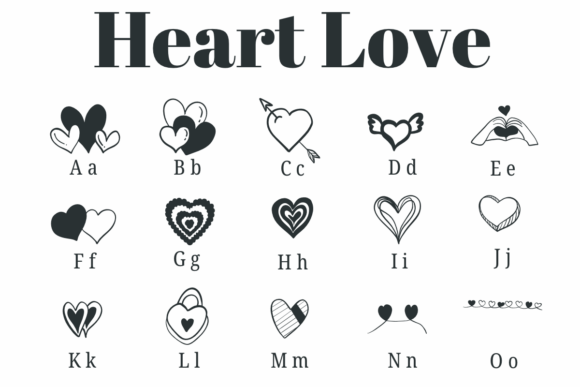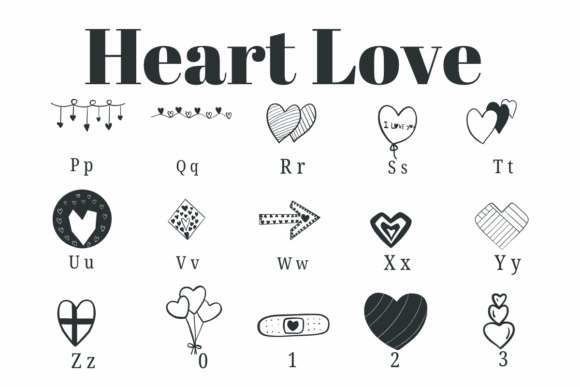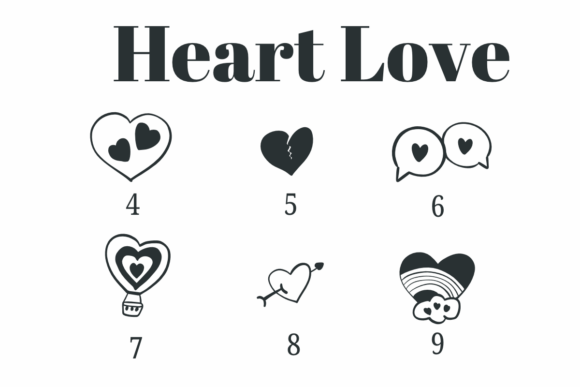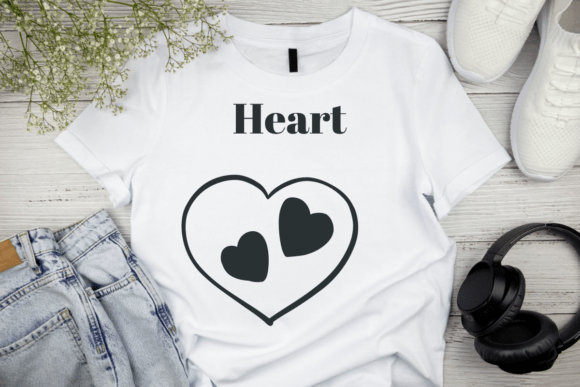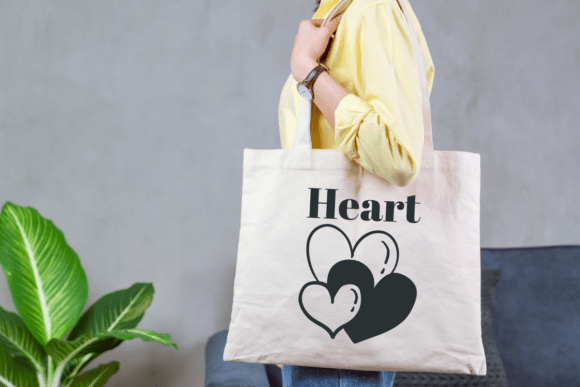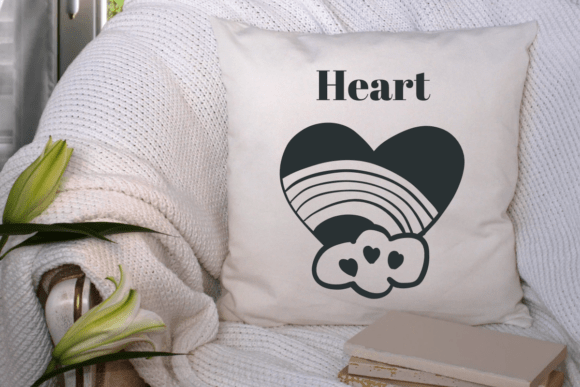
Heart Love Font: The Ultimate Romantic Dingbat Collection
Are you looking for a way to add a touch of whimsy and affection to your designs? Look no further than Heart Love, a specialized dingbat font collection that is sure to capture the hearts of designers and crafters alike. This comprehensive set of hand-drawn heart illustrations is perfect for anyone looking to add instant personality to their work, whether it’s for Valentine’s Day cards, wedding stationery, or social media stickers.
What is Heart Love Font?
Heart Love is a unique dingbat font collection that features a wide range of hand-drawn heart illustrations, from sketched outlines and solid silhouettes to romantic elements like arrows, balloons, and decorative garlands. This extensive set of icons is designed to provide a consistent, charming aesthetic that will elevate any design project. With Heart Love, you can say goodbye to the hassle of searching for individual clip art and hello to a beautiful, cohesive layout that can be achieved with just a few simple keystrokes.
The Benefits of Using Heart Love Font
So why should you choose Heart Love font for your design projects? Here are just a few benefits of using this amazing dingbat font collection:
- Instant Personality: With Heart Love, you can add instant personality to your designs, whether you’re working on a Valentine’s Day card, wedding stationery, or social media sticker.
- Cohesive Aesthetic: Unlike individual clip art pieces, which can look disjointed and inconsistent, Heart Love font provides a consistent, charming aesthetic that will tie your design together.
- Time-Saving: No more searching for individual clip art pieces or spending hours creating your own illustrations. With Heart Love, you can access a vast library of hand-drawn heart illustrations with just a few clicks.
- Versatility: Whether you’re a designer, crafter, or social media influencer, Heart Love font is perfect for anyone looking to add a touch of whimsy and affection to their work.
Design Ideas for Heart Love Font
So what can you create with Heart Love font? Here are just a few design ideas to get you started:
- Valentine’s Day Cards: Create beautiful, one-of-a-kind Valentine’s Day cards featuring hand-drawn heart illustrations and romantic messages.
- Wedding Stationery: Add a touch of whimsy and romance to your wedding stationery with Heart Love font, featuring beautiful illustrations of hearts, arrows, and decorative garlands.
- Social Media Stickers: Create eye-catching social media stickers featuring hand-drawn heart illustrations and romantic messages.
- DIY Crafts: Use Heart Love font to create custom DIY crafts, such as handmade cards, gift tags, and decorations.
In conclusion, Heart Love font is the ultimate romantic dingbat collection for designers and crafters looking to add a touch of whimsy and affection to their work. With its extensive set of hand-drawn heart illustrations, consistent charming aesthetic, and ease of use, Heart Love font is perfect for anyone looking to elevate their design projects. Whether you’re working on a Valentine’s Day card, wedding stationery, or social media sticker, Heart Love font is sure to capture the hearts of your audience.